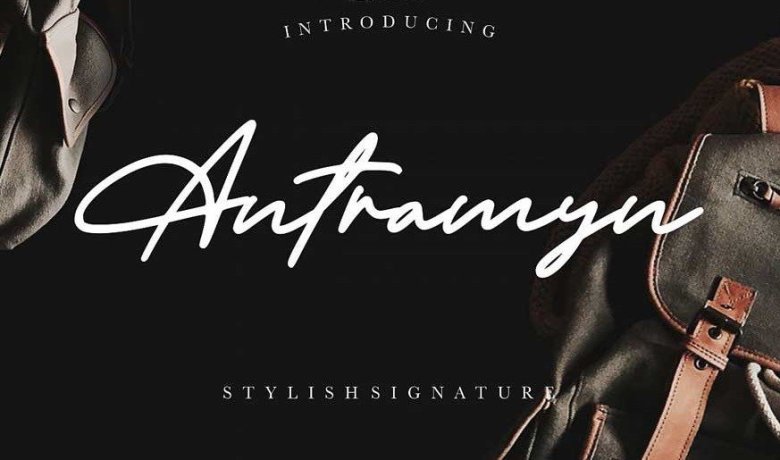
Antramyn Stylish Signature
Antramyn is perfect for branding projects, logo, wedding designs, social media posts, advertisements, product packaging, product designs, label, photography, watermark, invitation, stationery and any projects that need handwriting taste.